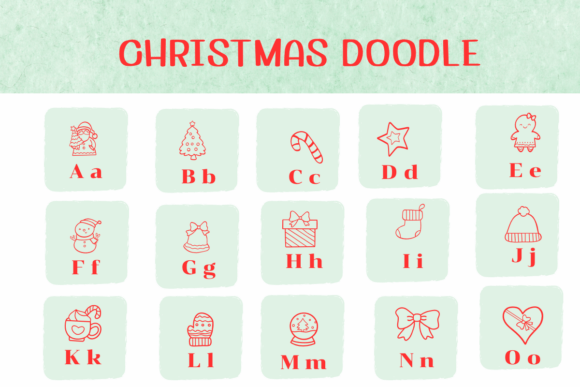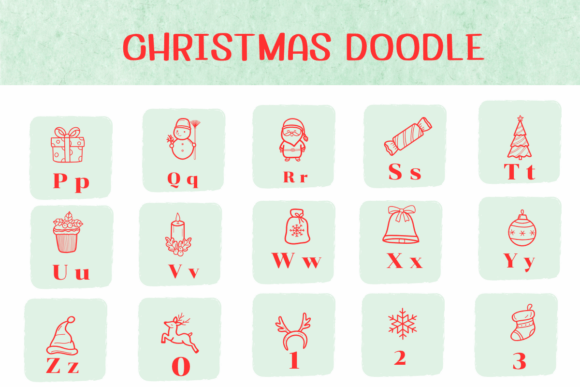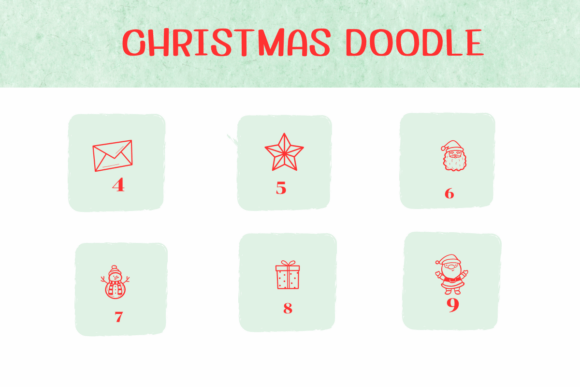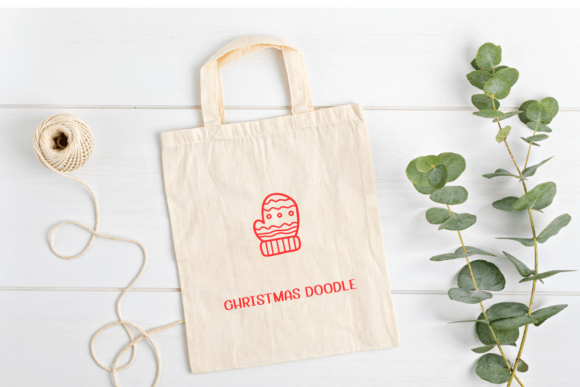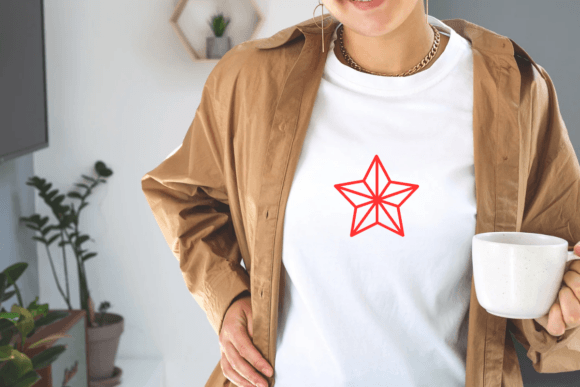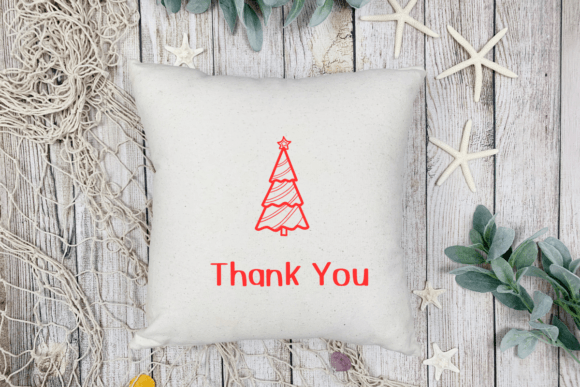
Get Ready to Deck the Halls with Christmas Cheer
As a designer, you know that the right font can make all the difference in bringing a project to life. There’s something special about creating something that sparks joy and festive spirit, especially during the holiday season. Have you ever found yourself sitting at your desk, surrounded by scraps of paper, glue, and glitter, trying to come up with the perfect design for a holiday card or gift tag?
That’s where the Christmas Doodle Font comes in – a delightful dingbats font that’s bursting with festive cheer. This versatile font is perfect for wedding invitations, DIY crafts, decorations, logos, and so much more. With its playful, whimsical style, the Christmas Doodle Font is sure to add a touch of magic to any project. Whether you’re a seasoned designer or a crafty DIY enthusiast, this font is a must-have for anyone looking to add some holiday sparkle to their creations.
Key Features of Christmas Doodle Font
- Unique Characteristics: The Christmas Doodle Font features a playful, hand-drawn design with intricate details and ornaments, adding a touch of whimsy to holiday-themed projects.
- Character Set: The font includes a wide range of characters, including uppercase and lowercase letters, numbers, punctuation marks, and holiday-themed symbols.
Designer Review: Christmas Doodle Font
Overall, I think the Christmas Doodle Font is a cute and playful addition to any holiday design project. ✨ It’s perfect for creating a whimsical and festive atmosphere, especially when paired with illustrations or graphics that match its doodle aesthetic.
- Unique and creative design elements, such as the festive doodles and swashes
- High-quality and clear font rendering, even at larger sizes
- Good legibility, making it suitable for body text or headlines
However, I do have a few concerns:
- ⚠️ Limited character set, which may not be ideal for longer blocks of text
- ⚠️ May not be suitable for formal or professional holiday designs, due to its playful nature
- ⚠️ Some characters may not be easily recognizable, especially for users with vision impairments
Overall, I think the Christmas Doodle Font is a great choice for designers who want to add a fun and festive touch to their holiday projects. Just be mindful of its limitations and use it judiciously to achieve the desired effect.
Use the Christmas Doodle Font to add a festive touch to your designs, especially during the holiday season.
Combine it with other festive graphics and elements to create a cohesive look.
The Christmas Doodle Font is perfect for:
Holiday greeting cards
Social media posts
Party invitations
Gift tags and wrapping paper